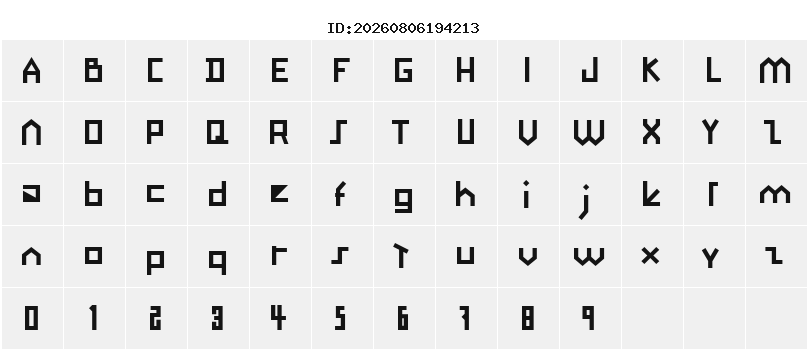
• Font Name: Okinawa
• Designer: Marco Antonio Sanz Molleda
About Okinawa.ttf
Okinawa.ttf is a modern, elegant sans-serif font designed for ultimate readability and visual harmony. Perfect for branding, headlines, web design, and print materials.